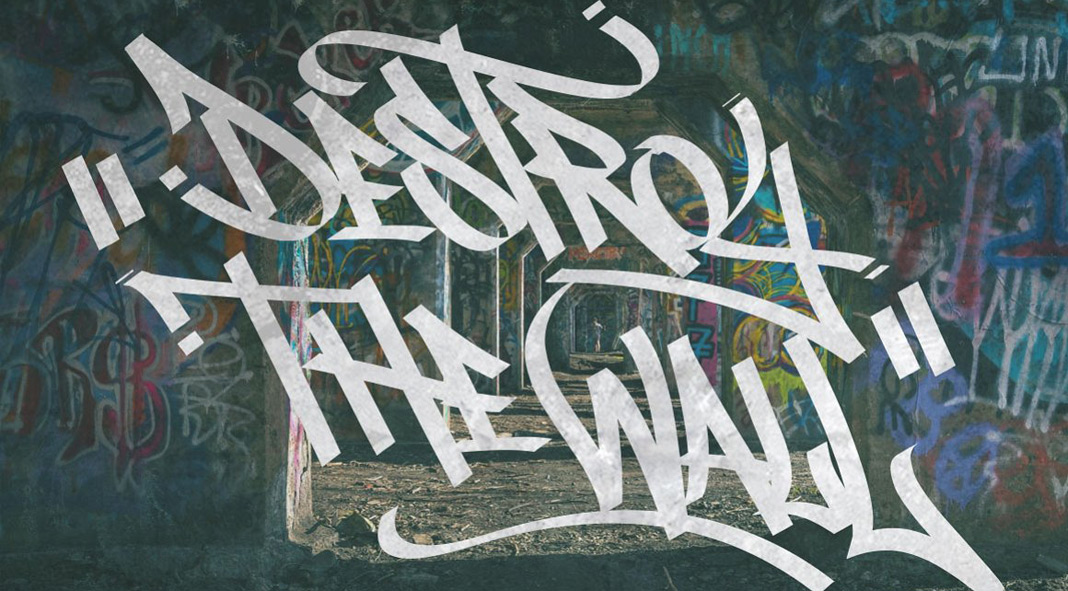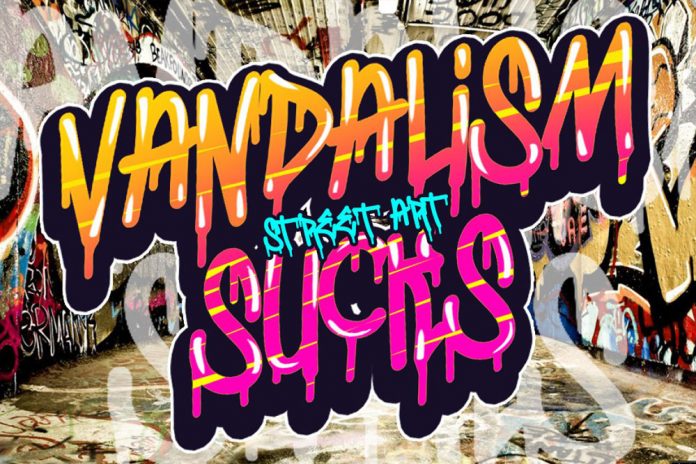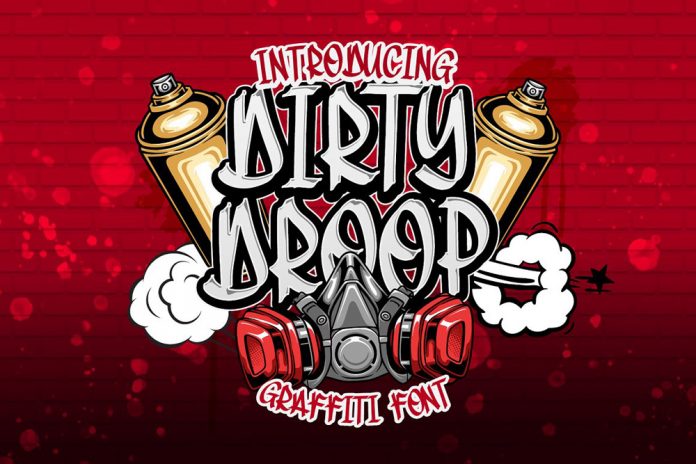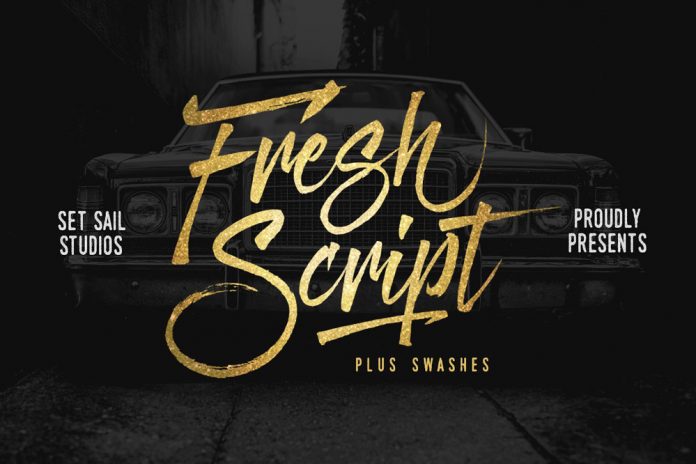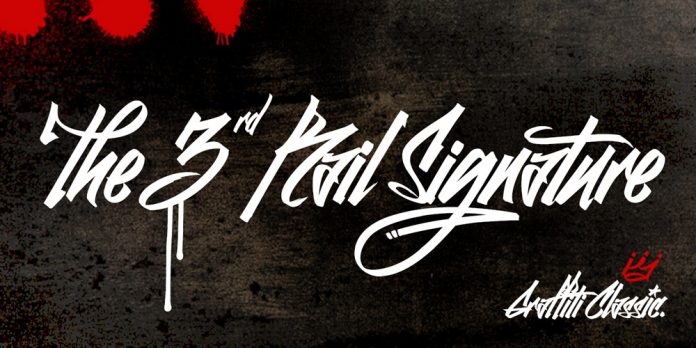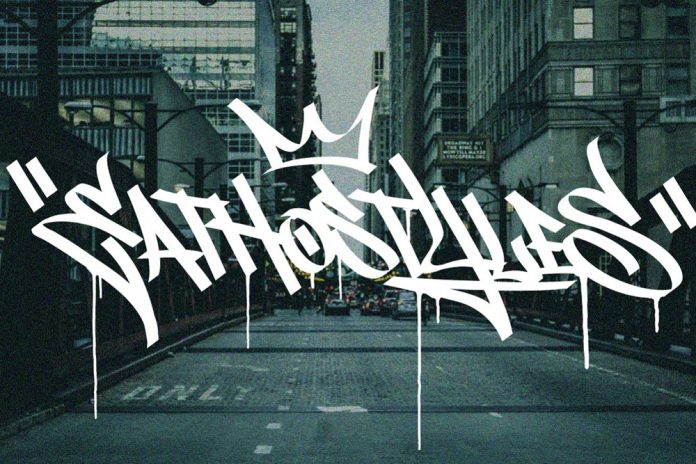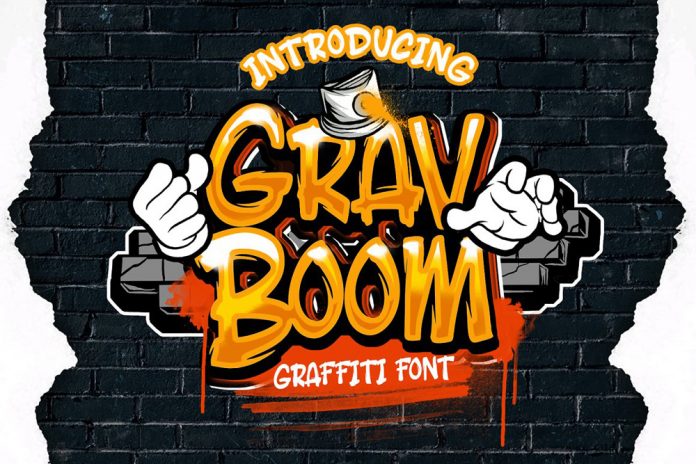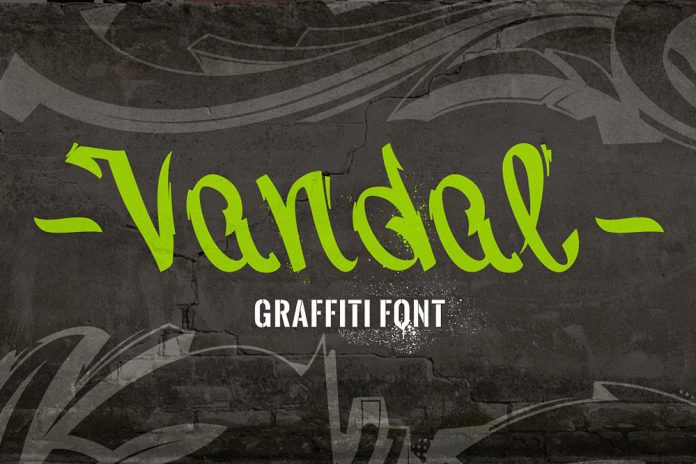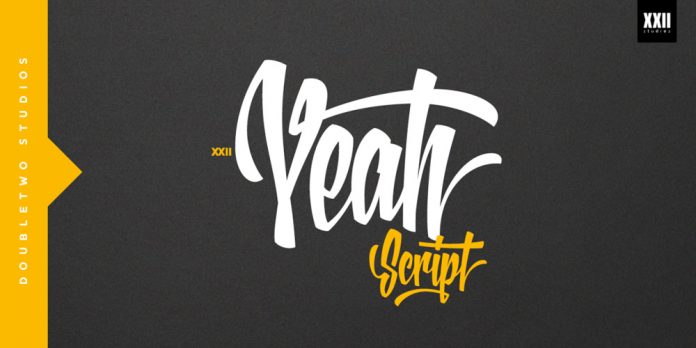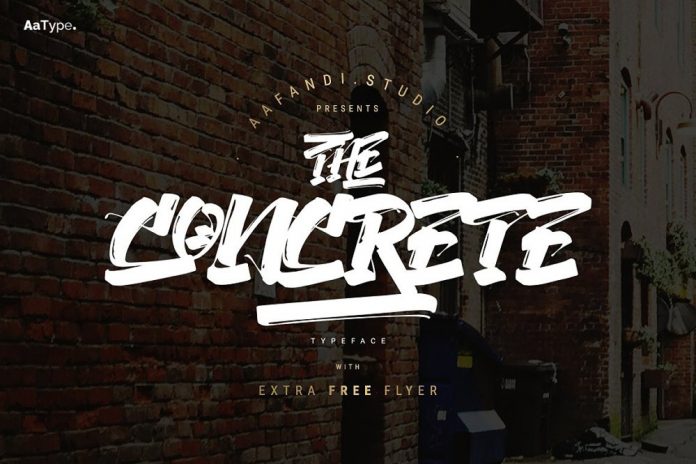
Download these 10 best graffiti fonts to create authentic street style designs in no time!
For those of you looking for a stylish font to create authentic street style designs, magazines, music posters, or hero header graphics with eye-catching typography, our selection of the 10 best graffiti fonts will help you to add a bold and unique look to your typographic work.
We browsed through various graphic design resources all over the web to find the 15 best graffiti fonts that can be downloaded right away for use in various projects.
Street Tag vol. one
Graffiti Font — Street Tag vol. one
The Street Tag vol. one graffiti font
Created by Tomat Studio, Street Tag vol. one draws inspiration from cool tags in urban environments. This super stylish graffiti font comes with numerous bonus elements including an additional outlined typeface, special characters, and vector elements of drips, lines, and vector symbols. Furthermore, it includes a hip hop poster design.
GravBOOM Graffiti Fonts
GravBOOM graffiti font
The GravBOOM font.
This typeface is clearly based on a straight graffiti style. GravBOOM’s character set is also well suited for logo designs, posters, headlines, packaging, badges, tattoo artwork, clothing, and much more. For further information, just click on the following link.
XXII YeahScript
XXII YeahScript.
XXII YeahScript from Doubletwo Studios is a brush script font with a wide range of alternates. It has been designed to easily create stunning logos, headlines, or short text phrases. The typeface is equipped with plenty of swashes, alternates, and line strokes.
Skylight
Skylight Graffiti Font
The Skylight font.
Published by the Rvq Typefoundry, the Skylight Graffiti font is a fun typeface that offers beautiful combinations. To do so, just mix the uppercase and lowercase letters along with the alternative glyphs. The playful graffiti style works well in a wide range of designs.
Fresh Script
The Fresh Script typeface.
Designed by Sam Parrett, Fresh Script is a hand-painted typeface designed to help you create the look of stunning custom hand-lettering such as graffiti tags. The typeface includes upper and lowercase characters, punctuation, and numerals. It also supports international languages.
Bombing Gang
Bombing Gang graffiti font
The Bombing Gang graffiti typeface.
This bold graffiti typeface was created by Indra Gunawan. It is available in the OTF and TTF format. Its features include uppercase and lowercase letters as well as numerals and punctuations.
Graffiti Classic
The Graffiti Classic typeface.
Graffiti Classic is a font that blends the improvisational urban style with the smoothness and regularity of a modern typeface. The typeface also includes ornaments of clouds, underlines, arrows, crowns, etc. To learn more, just click on one of the following links.
Dirty Droop Graffiti Font
Dirty Droop graffiti font
The Dirty Droop graffiti font.
Here comes another bold and unique graffiti font. You can use it for plenty of modern designs. Its bold look is truly an eye-catcher. This typeface is the right choice for funky urban designs.
The Concrete
The Concrete.
The Concrete is a high-resolution street tagging & graffiti’s inspired font. It has been developed by studio AaType with a distinctive hand-style tagging. Its OpenType features include numerals, punctuation, ligatures, alternates, swashes, and additional elements.
Vandal Graffiti Font
The Vandal graffiti font.
Vandal is a stylish font inspired by street art and underground culture. Its characteristic letters will help you to recreate the mood of the urban atmosphere of the 1980s and 1990s. Vandal is a great choice for hip-hop designs as well as old-school and urban looks.